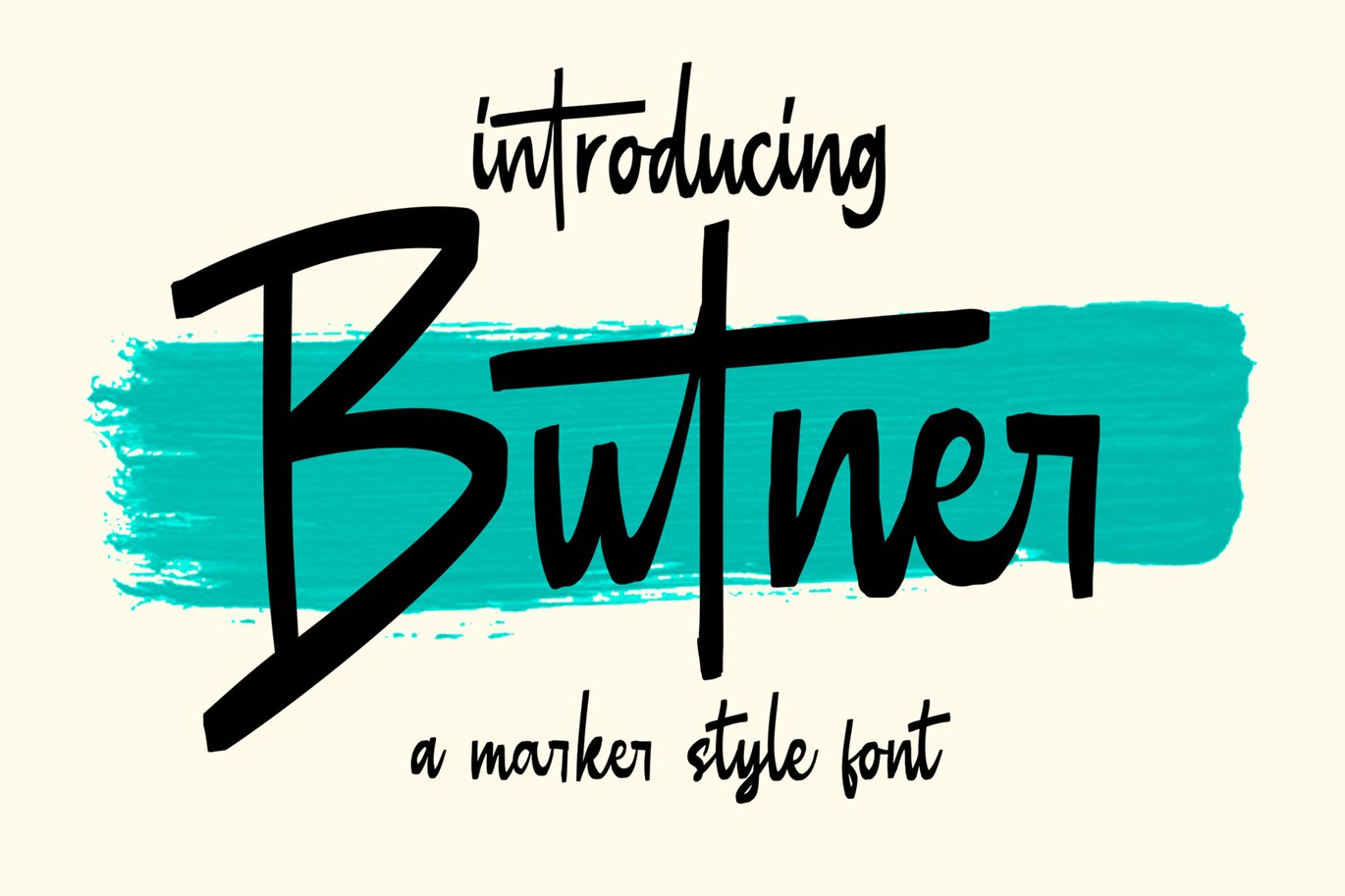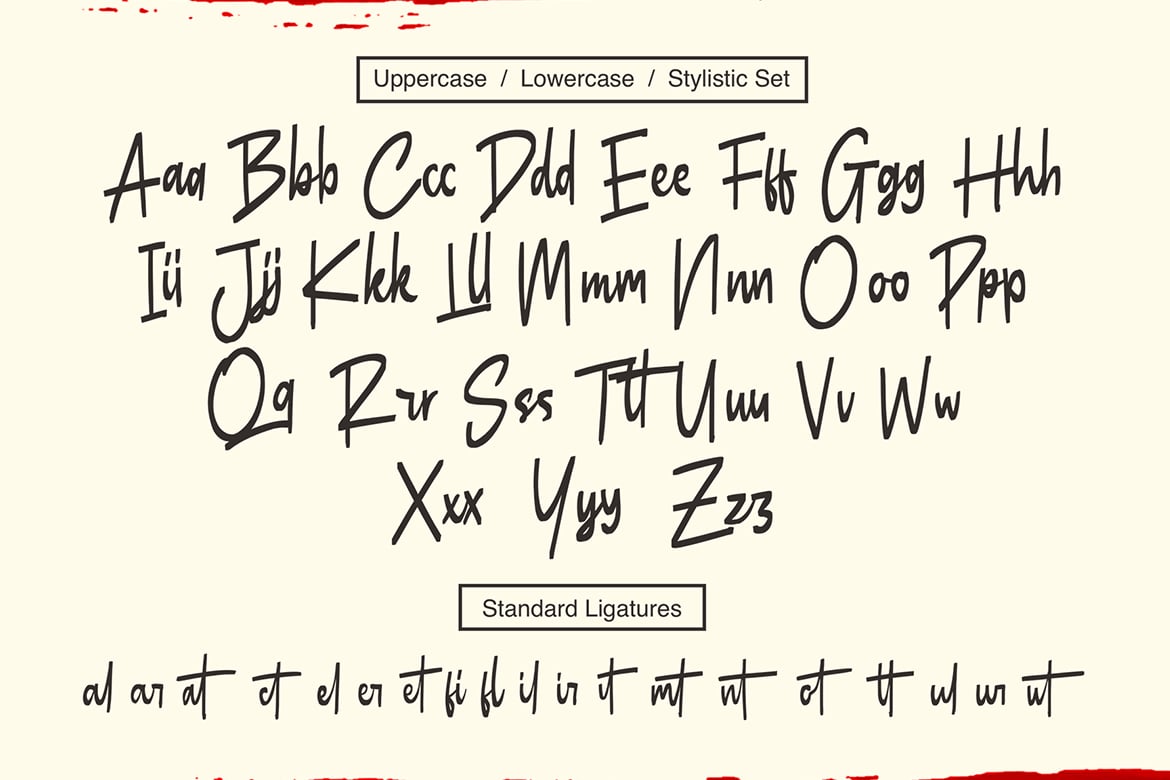
Butner – Marker Font
Introducing Butner marker font which has a hand lettering marker style. So it looks natural like a handmade. This font is best used for your design project that has the concept of fun, girly, romantic and elegant. Can also be applied to the design of a logotype, header website, wedding logo, romantic design, makes some lettering a quote, T-shirt design etc.
Character Set A-Z
Numerals & Punctuations (OpenType Standard)
Ligatures
Stylistic Alternates
SS01